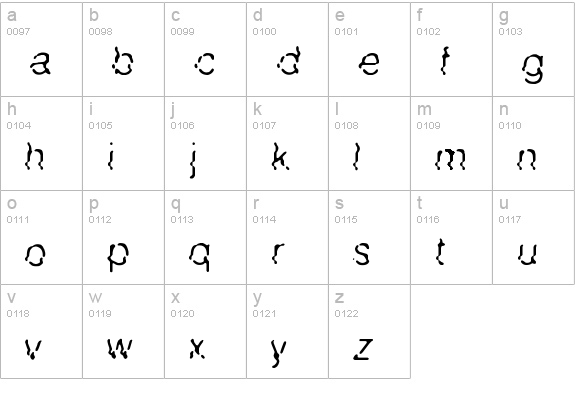
Waved Line Font Details
Introducing Waved Line font, a stunning display typeface that effortlessly combines elegance and playfulness. The unique design of this font features smooth, flowing lines that appear as if they are gracefully waving on the page. Each character has been meticulously crafted to exude a sense of movement and energy, making it perfect for capturing attention and adding a touch of whimsy to any project. With its versatility and bold presence, Waved Line font is ideal for a variety of creative endeavors. Whether you're designing eye-catching logos, captivating headlines, or engaging social media posts, this font will undoubtedly make a lasting impression. Its distinctive style and captivating curves will effortlessly elevate your designs, ensuring they stand out from the crowd. And the best part? Waved Line font is absolutely free! You can easily download it at FontsMarket.com, where it is readily available for everyone to enjoy. So, whether you're a professional designer looking to add a touch of creativity to your work or an individual embarking on a personal project, this font is the perfect choice. Don't miss out on the opportunity to enhance your designs with the beauty and charm of Waved Line font. Download it today and let your creativity flow freely!